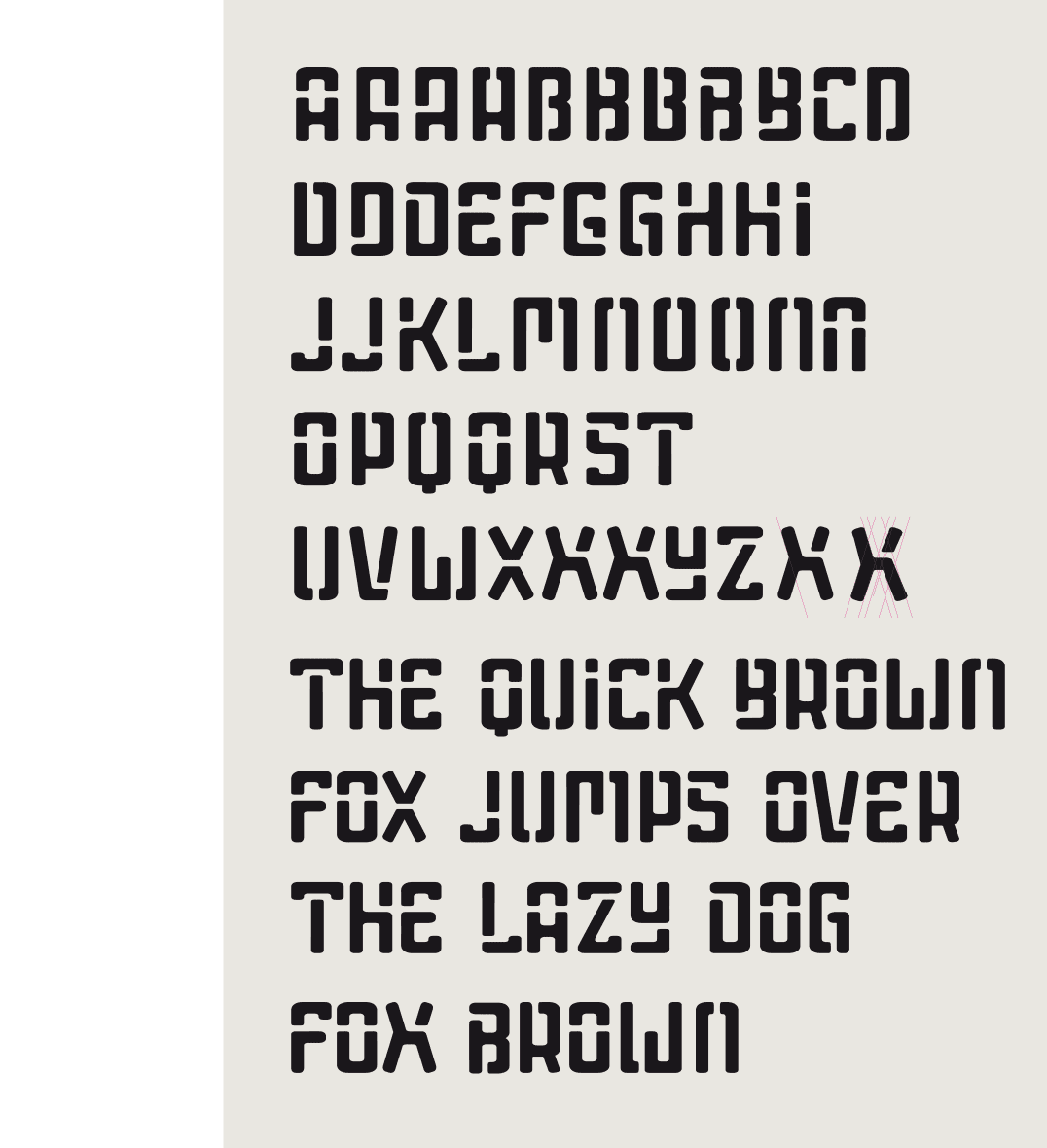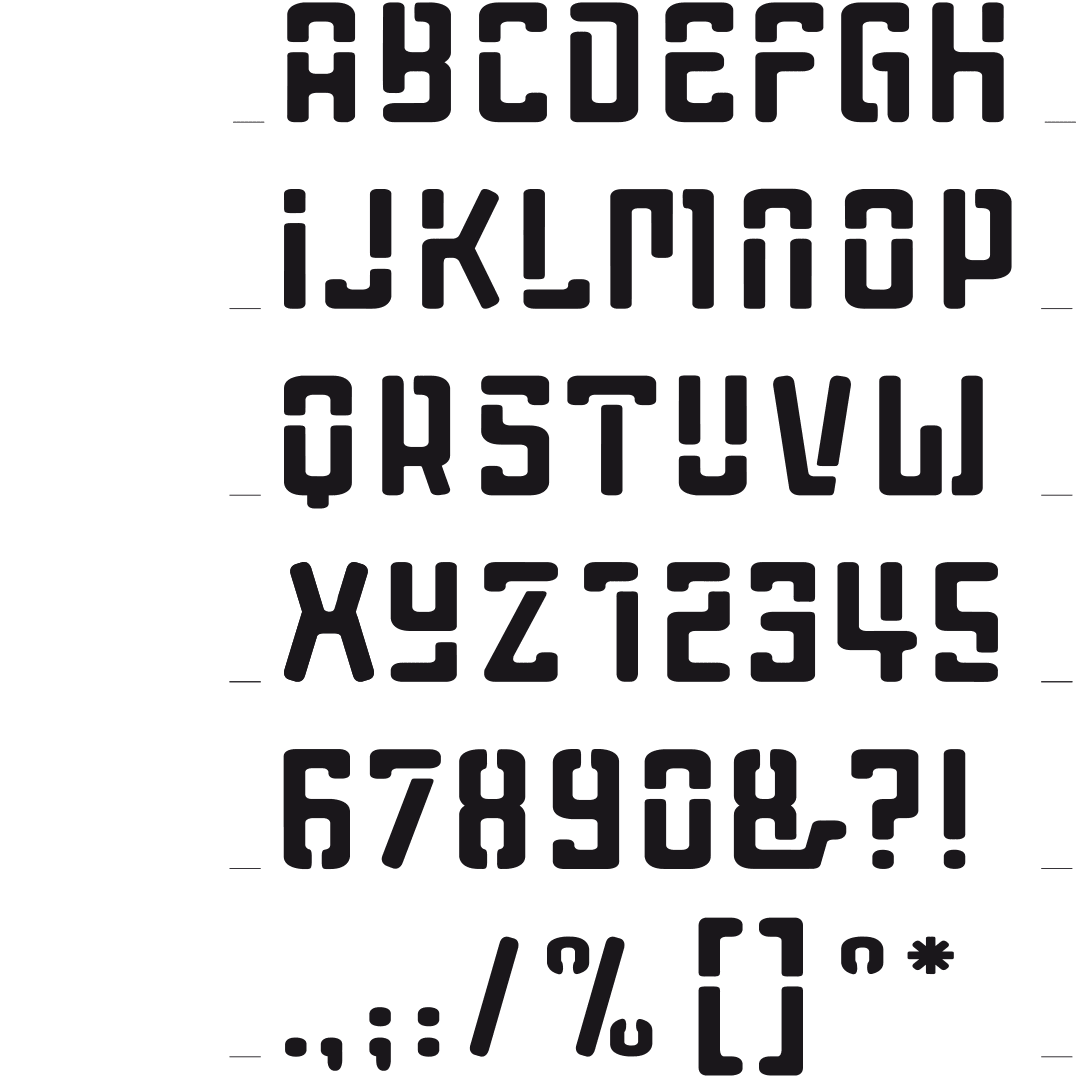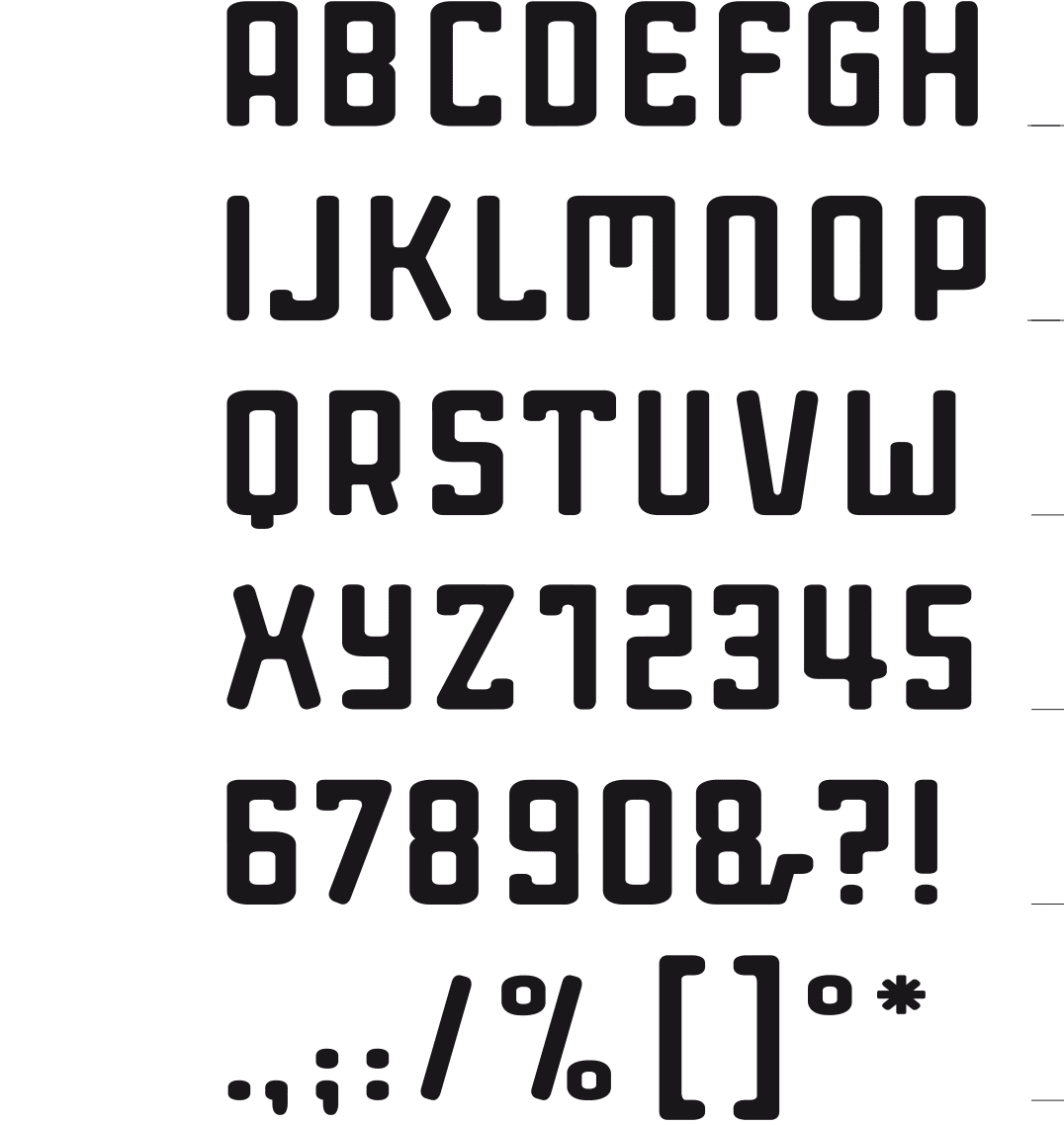
Construction sketches
[2017] I was asked for a fitting font to cut out of a metal base of a three-dimensional work. I browsed through stencil fonts but didn’t find anything useful. Most of them have rather wide characters and are not very original. As usual my playfulness (or was it vanity?) got the better of me and I just had to rise to the challenge.
I then realized a regular font from this stencil font.
Book cover Walter Leeman, furniture designer and interior architect - 2018
Poster selected for the contest ‘Madrid Gràfica 2017 ‘The Light City / La Ciudad Ligera’
Poster study for the contest Madrid Gràfica